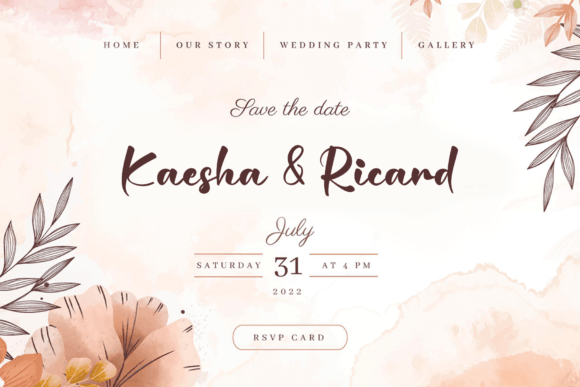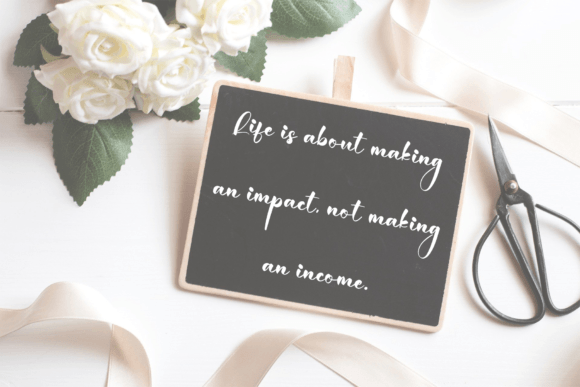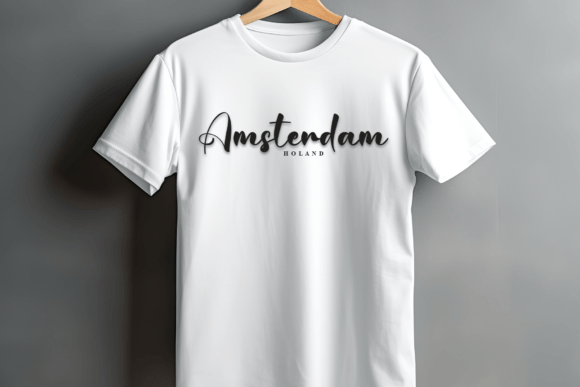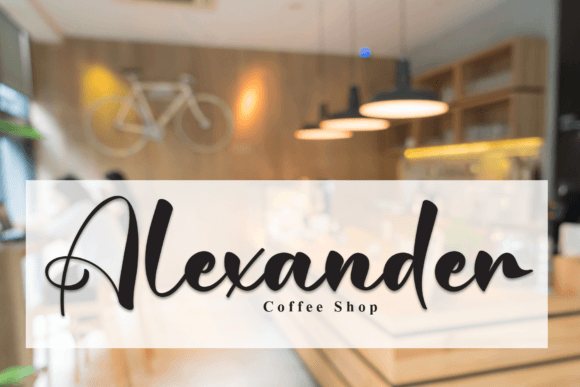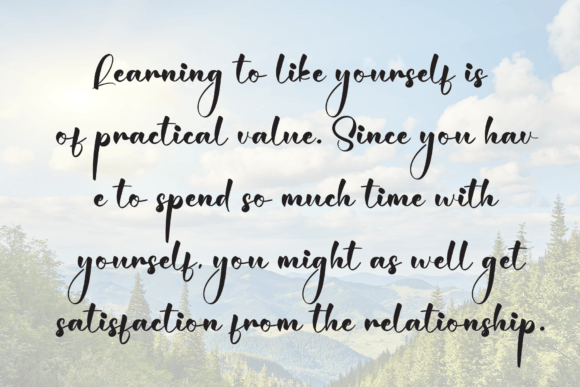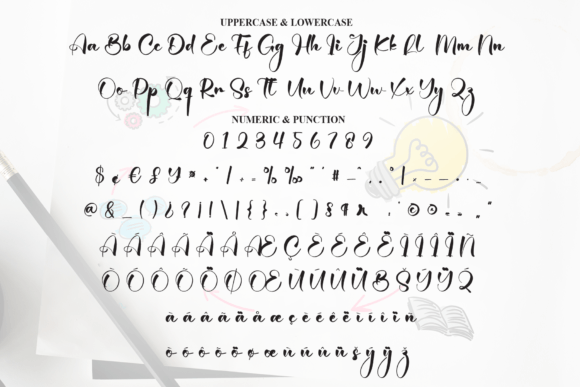
Introducing Creative Thinking Font: Elevate Your Designs with Elegance and Charm
In the world of design, fonts play a crucial role in conveying the tone and personality of a project. For designers and crafters looking to add a touch of sophistication and elegance to their work, the Creative Thinking Font is an excellent choice. This stylish handwritten script font is designed to exude charm and refinement, making it perfect for a variety of applications, from invitations and logos to branding and more.
The Beauty of Creative Thinking Font
Creative Thinking Font is characterized by its flowing, graceful curves that bring a sense of warmth and creativity to any design. The font’s delicate strokes are carefully crafted to create a sense of movement and fluidity, giving it a dynamic and expressive feel. Whether you’re looking to create a luxurious brand identity or a beautiful wedding invitation, this font is sure to impress.
One of the key benefits of Creative Thinking Font is its versatility. Its elegant and sophisticated design makes it suitable for a wide range of applications, including:
- Invitations: Add a touch of luxury and refinement to your wedding invitations, birthday parties, and other special events.
- Logos: Create a memorable and impactful logo for your business or brand that exudes elegance and sophistication.
- Branding: Develop a cohesive brand identity that reflects your values and personality with this beautiful font.
- Stationery: Elevate your stationery designs, such as business cards, letterheads, and envelopes, with a touch of elegance.
Why Choose Creative Thinking Font?
With so many fonts available, why choose Creative Thinking Font? Here are just a few reasons why designers and crafters love this font:
- Elegant and Sophisticated: This font exudes refinement and luxury, making it perfect for high-end designs.
- Versatile: Use it for a wide range of applications, from invitations to branding and more.
- Easy to Read: The font’s clear and flowing design makes it easy to read, even at small sizes.
- Unique: Stand out from the crowd with a font that’s both stylish and distinctive.
Tips for Using Creative Thinking Font
To get the most out of Creative Thinking Font, here are a few tips to keep in mind:
- Pair it with a Sans Serif Font: Combine Creative Thinking Font with a clean sans serif font for a striking contrast.
- Use it for Headings: This font is perfect for headings and titles, but can also be used for body text in smaller sizes.
- Experiment with Colors: Try pairing the font with different colors and textures to add depth and interest to your design.
Creative Thinking Font is a beautiful and elegant handwritten script font that’s perfect for designers and crafters looking to add a touch of sophistication to their work. With its flowing curves, delicate strokes, and versatile design, this font is sure to elevate your designs and make them stand out from the crowd. Whether you’re creating invitations, logos, or branding materials, Creative Thinking Font is an excellent choice.